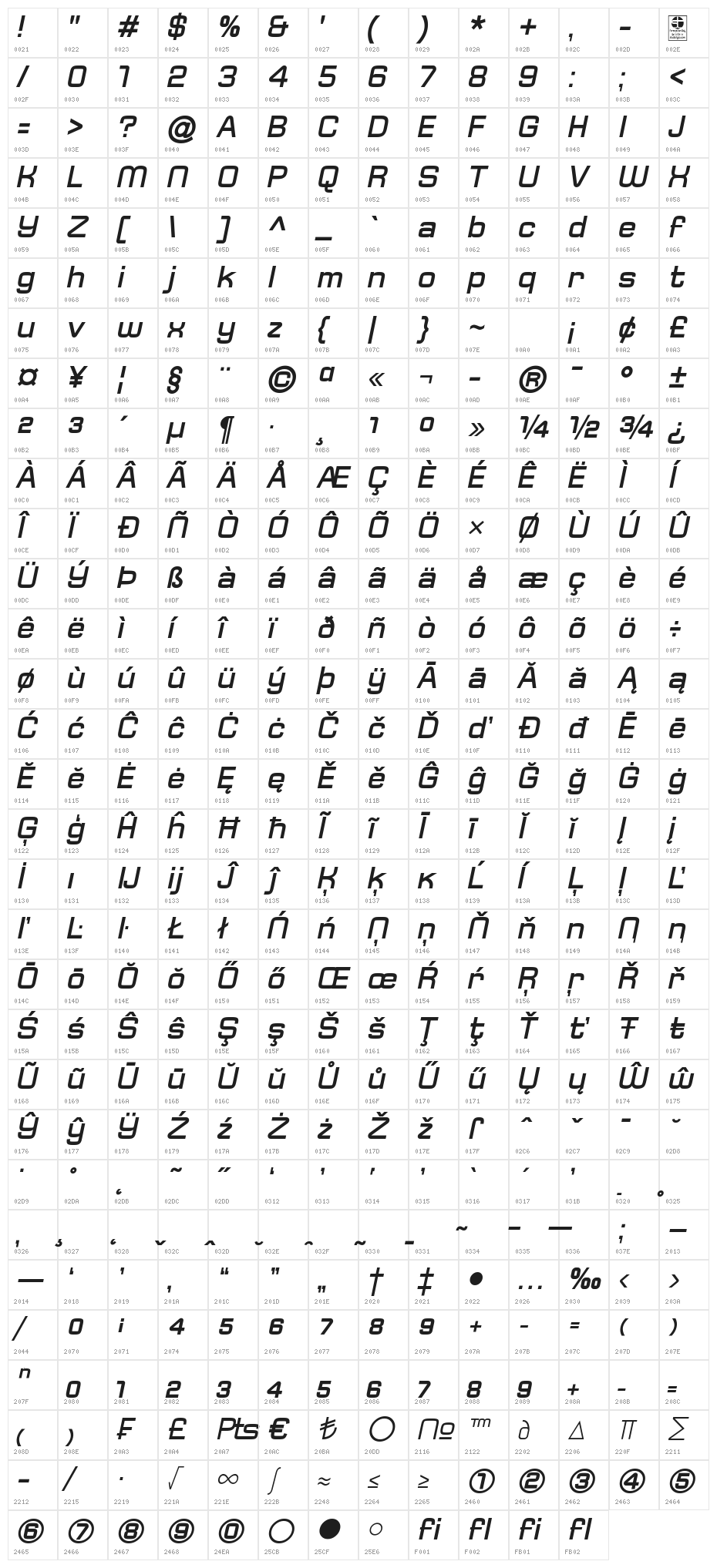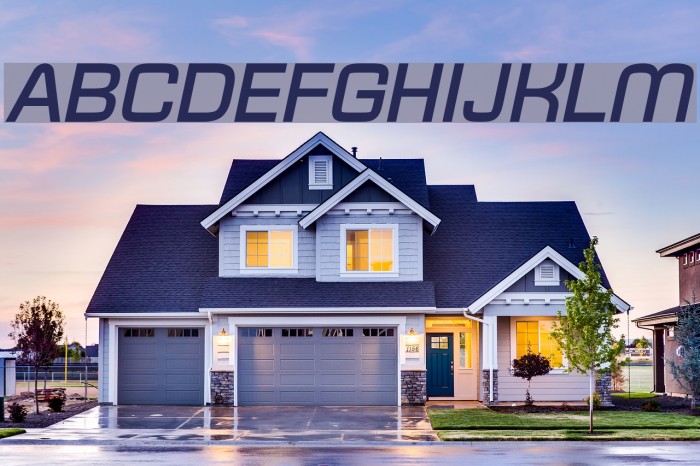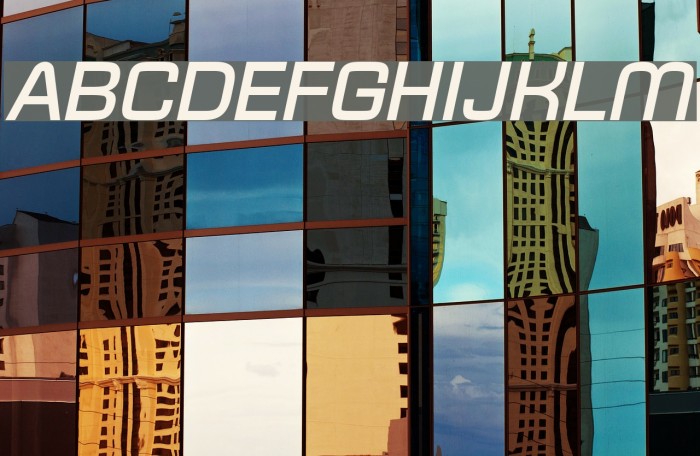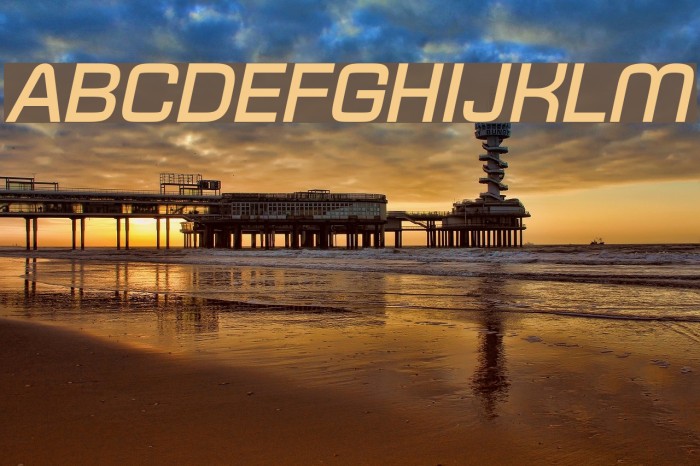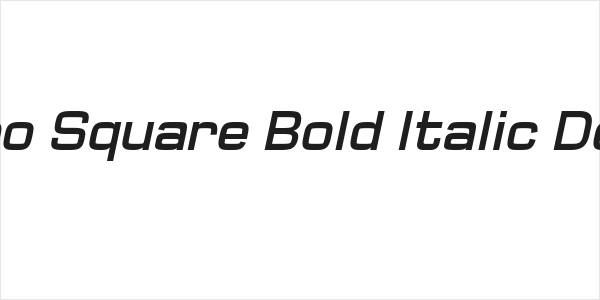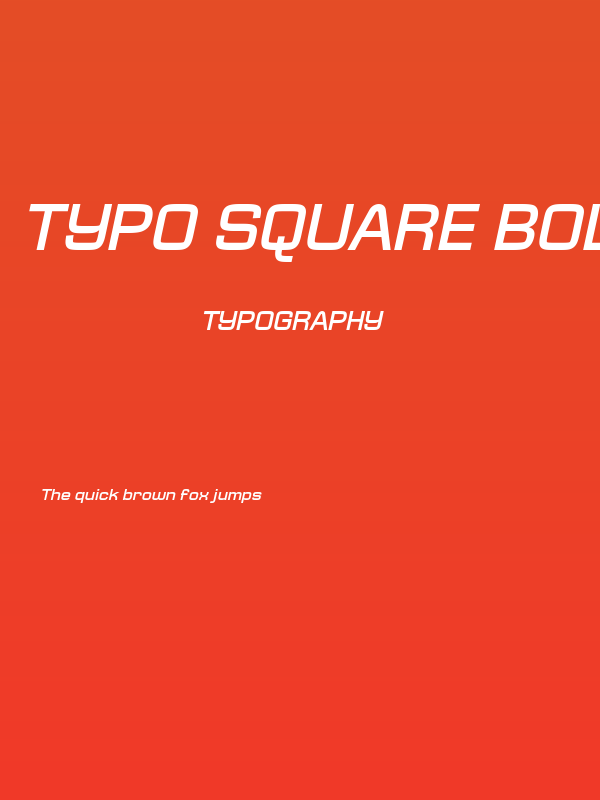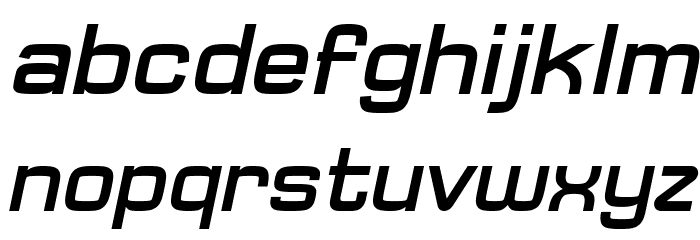
Typo Square Bold Italic Demo Font
Typo Square Bold Italic Demo Description
This font features a bold and italicized style with a modern, geometric appearance. The characters are slightly condensed, giving it a sleek and streamlined look. The strokes are consistent in thickness, providing a medium contrast that enhances readability while maintaining a contemporary aesthetic. The uppercase and lowercase letters are well-proportioned, and the numerals are clear and distinct. Special characters are designed to match the overall style, making it versatile for various applications.
| Use Case | Headlines, Logos, Digital Media |
| Proposed Projects | Ideal for branding, advertising, and digital media projects where a modern and bold statement is needed. |